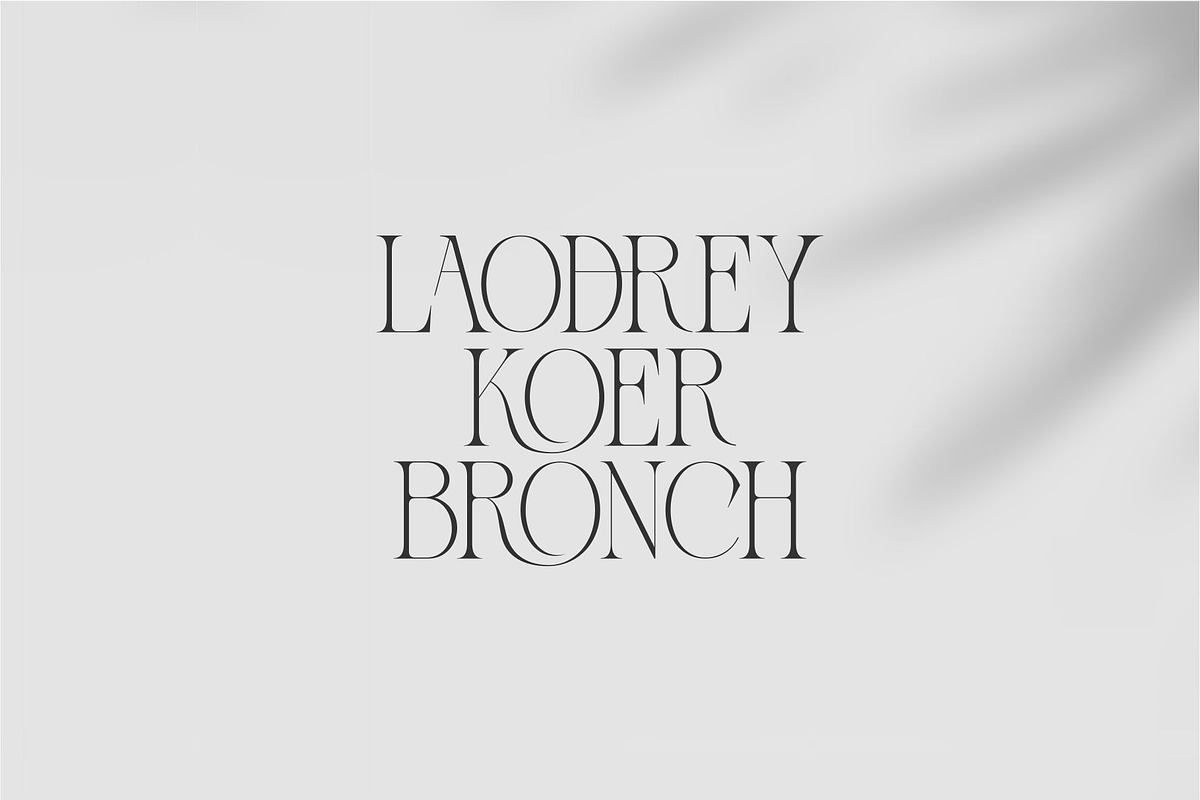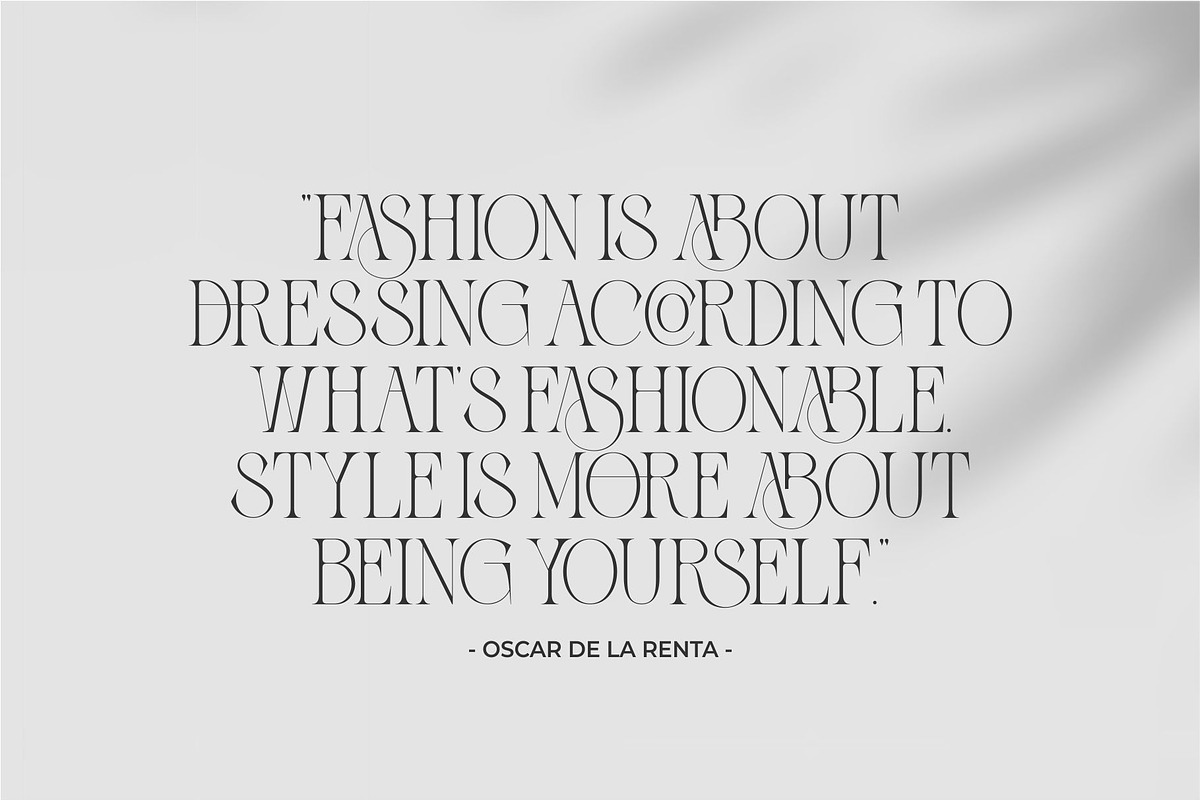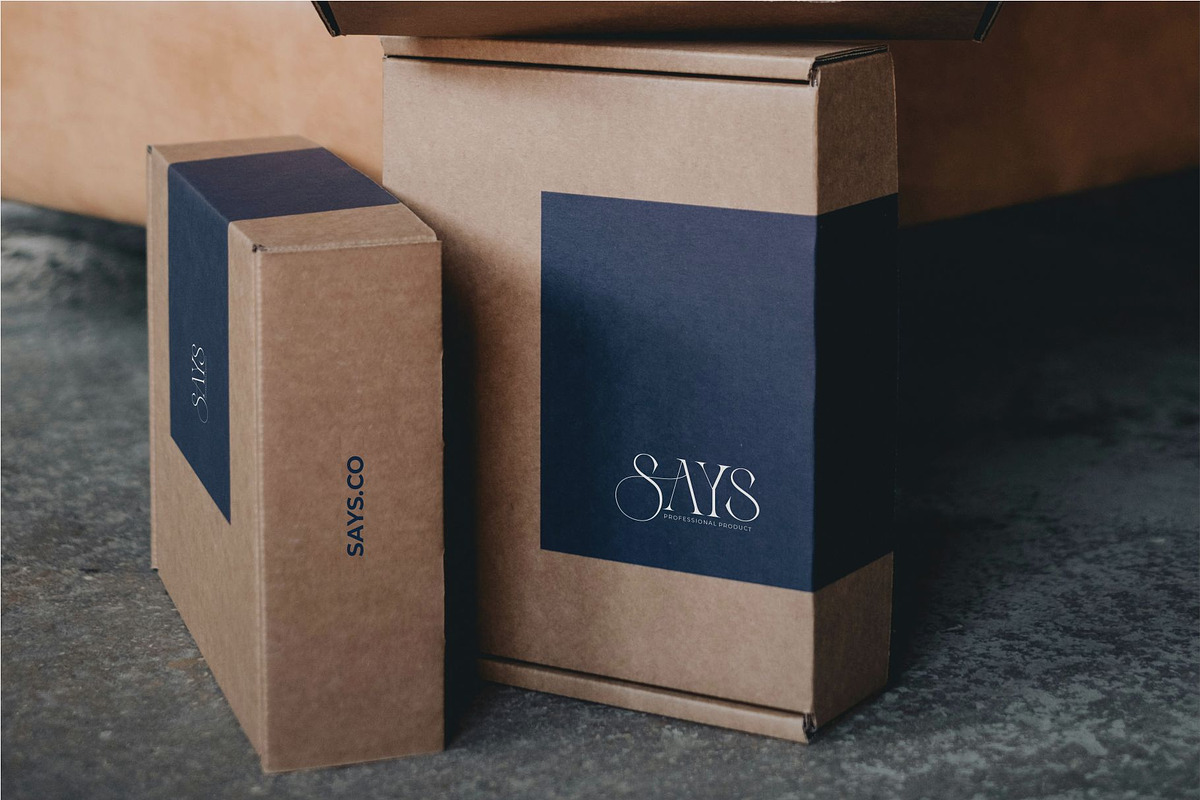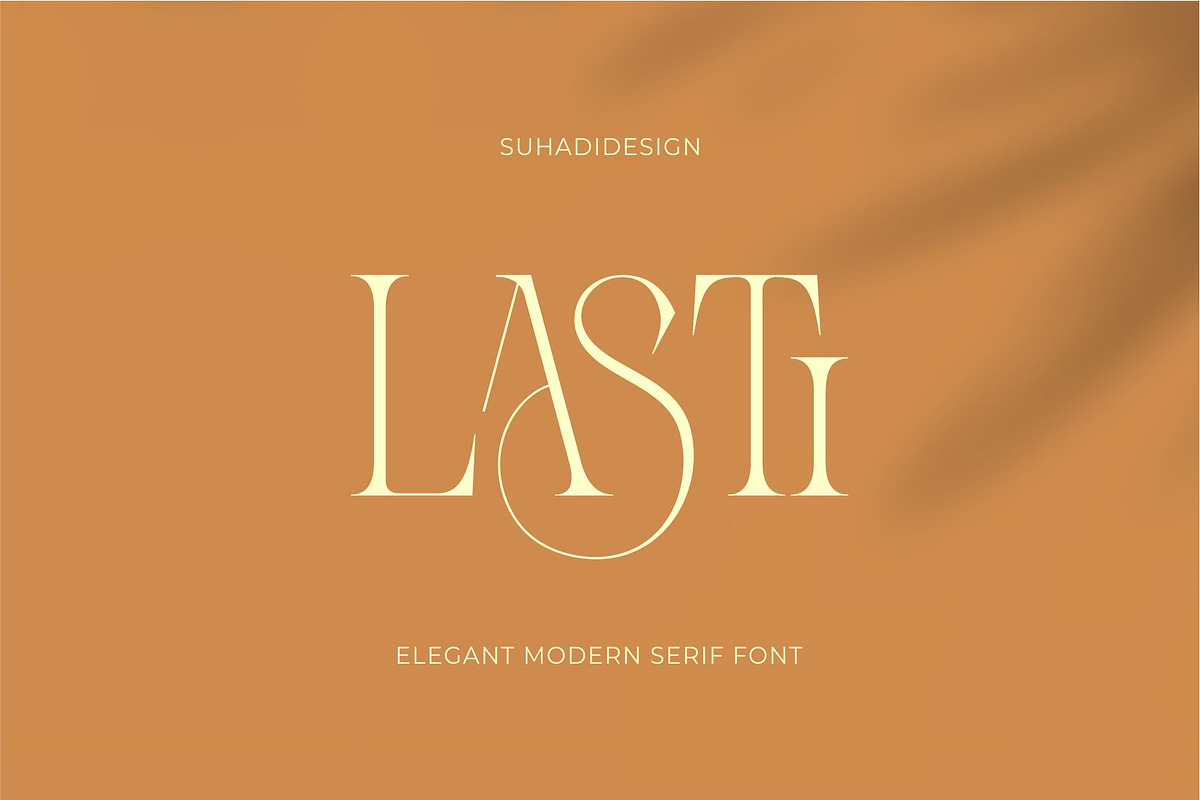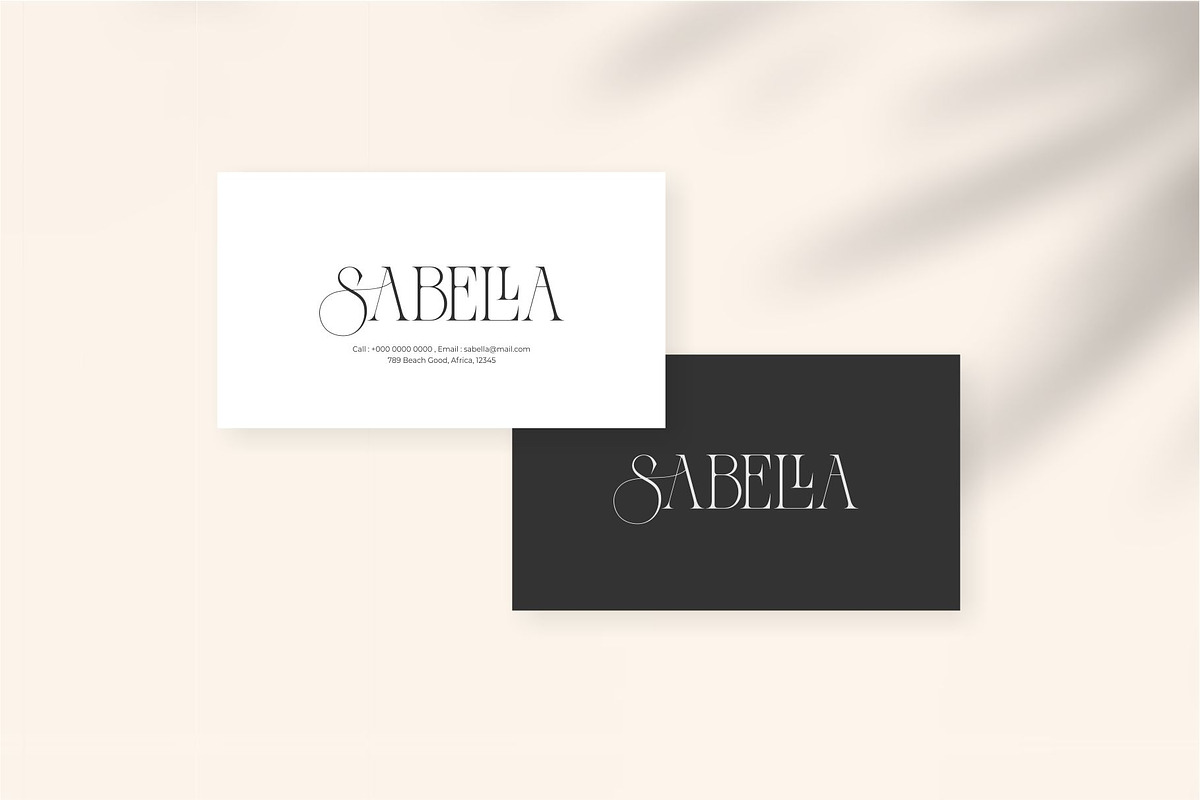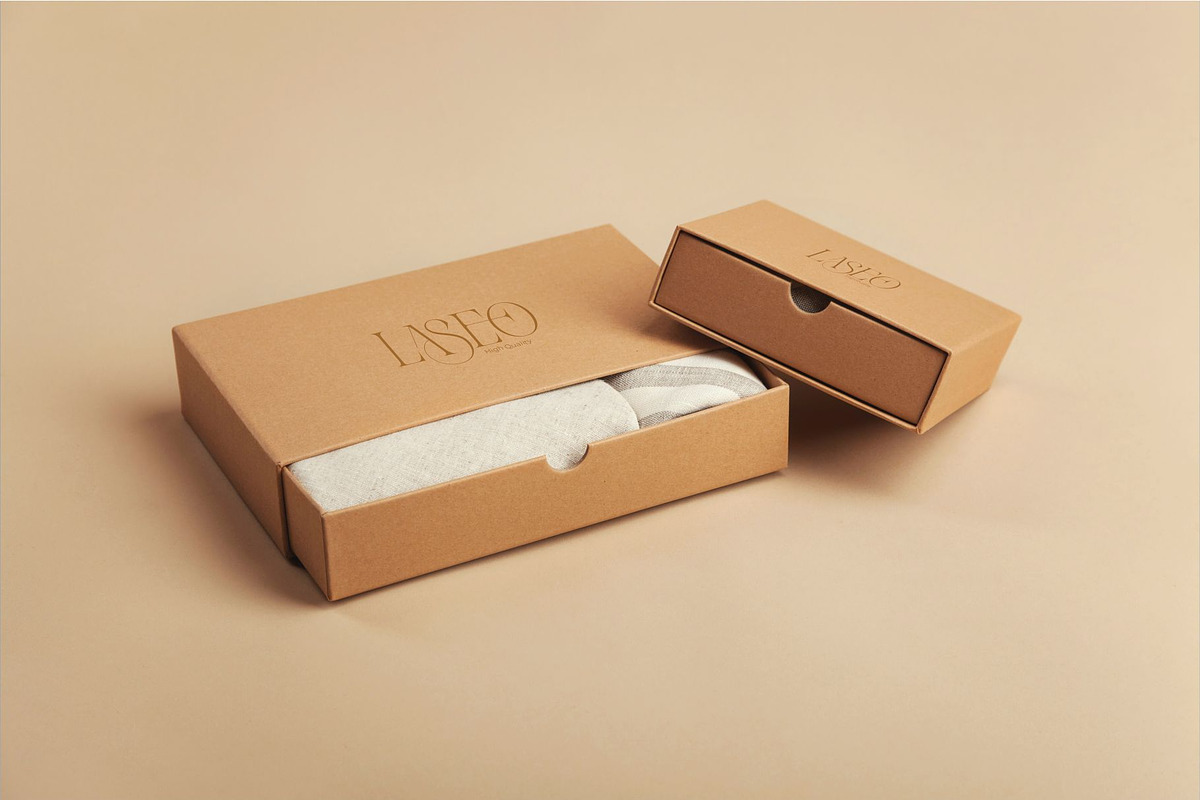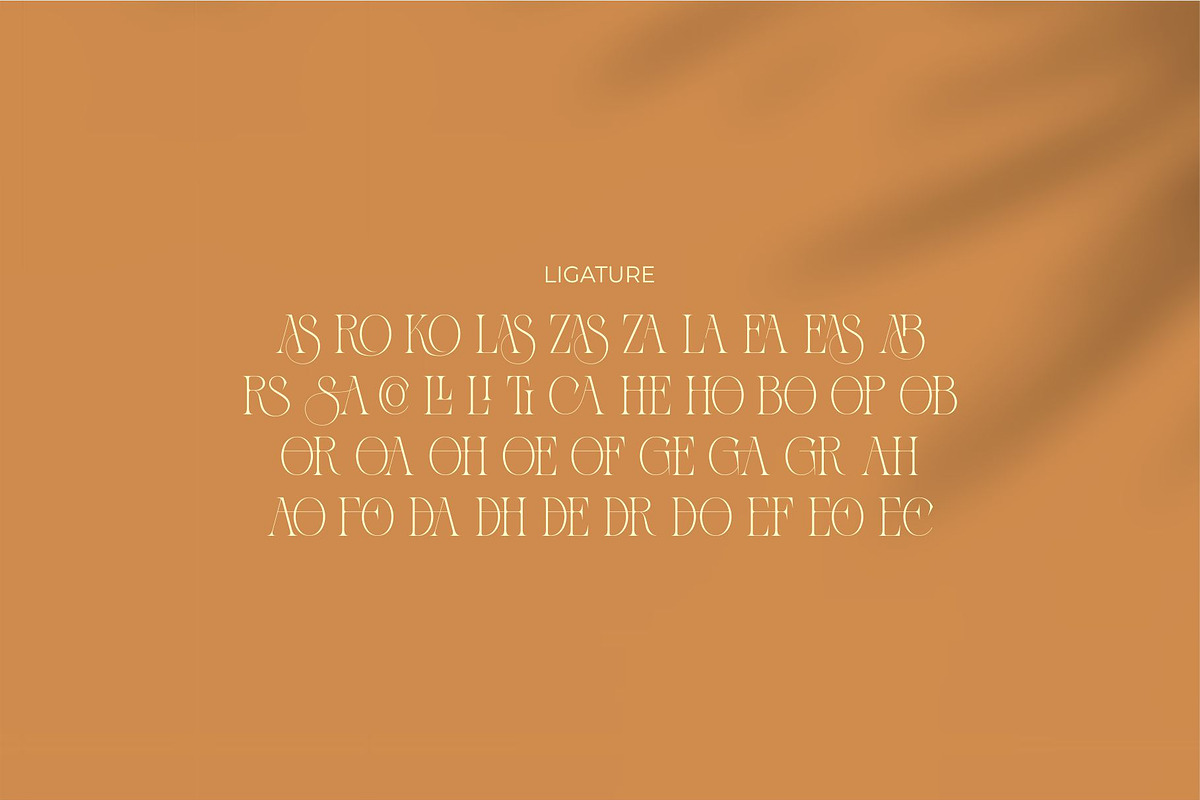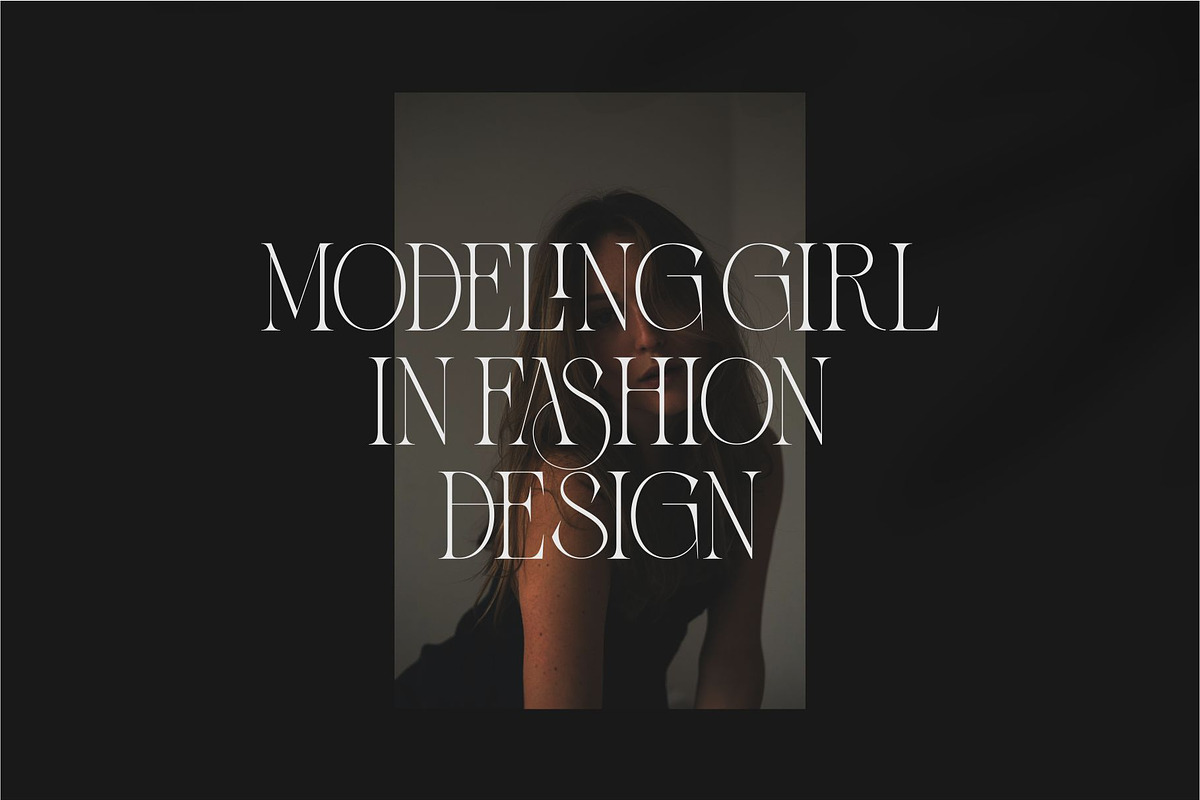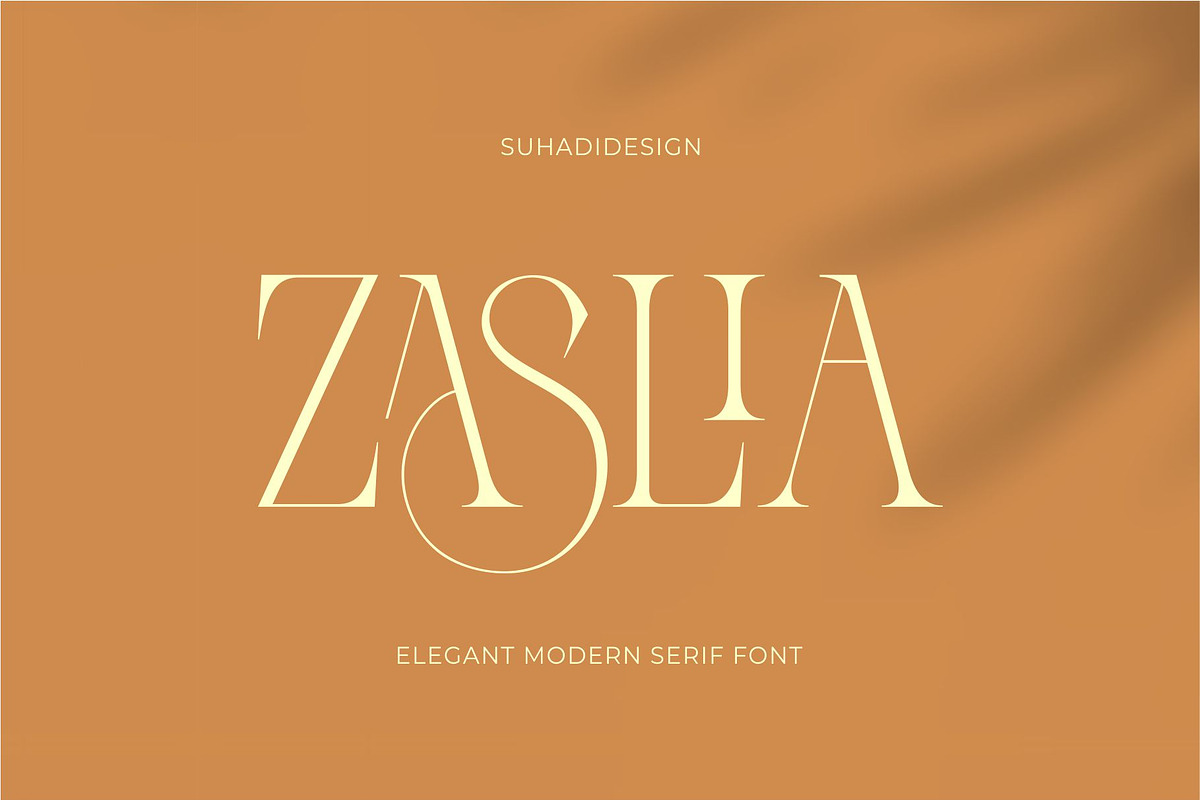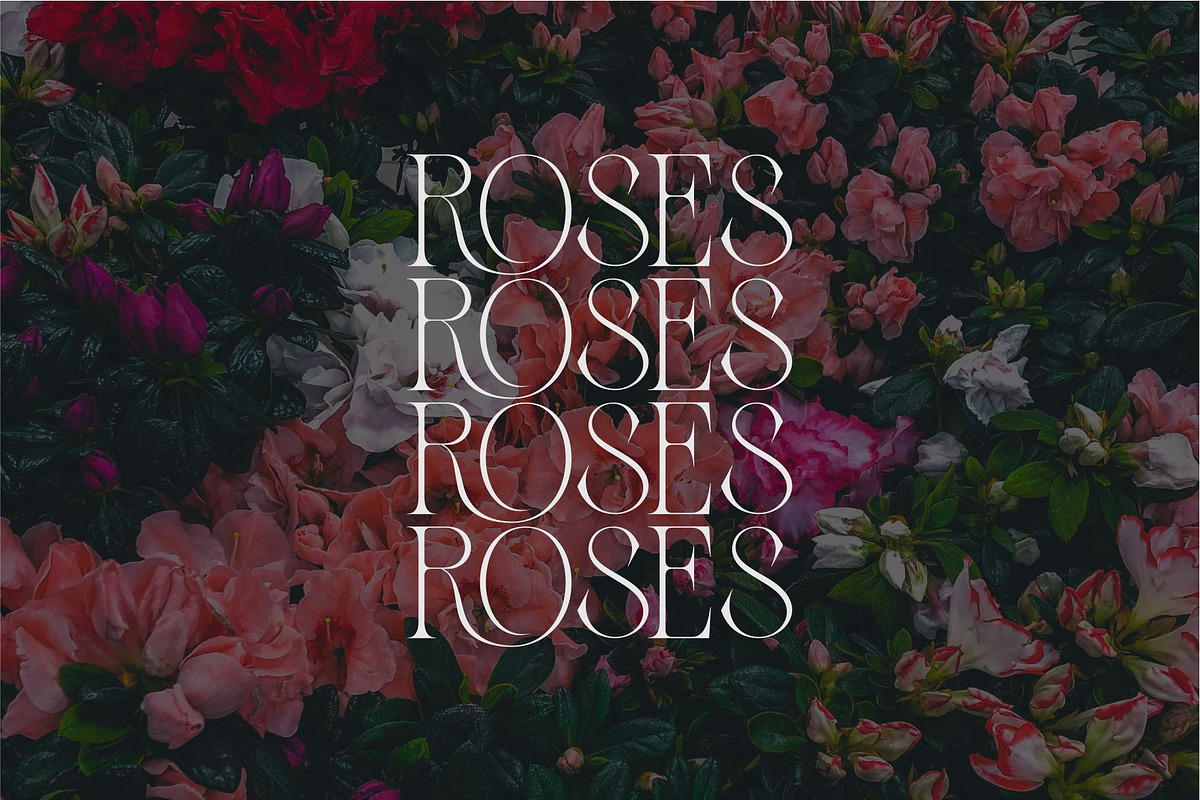
Zaslia - Elegant Ligature Serif
Hi ladies and gentlemen! The latest stylish modern font has arrived which is a font that many ladies and gentlemen are looking at. Namely the Zaslia font. Zaslia font is a stylish and elegant serif font. With an elegant model with a stylish fastener, it has become a market favorite. We keep this font looking elegant, classy, stylish. Zaslia Font is a great choice for magazines, design, books, publications, branding, brand names, business cards, social media, classy design, newspaper, branding, beauty and other projects. Zaslia Font is here to improve the quality of your designs.
Feature:
• All Uppercase • Ligatures • Multilingual Support • Numerical • Punctuation